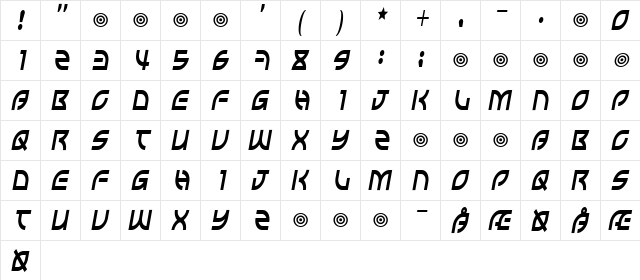
Wisecrack Regular
Design Context for Wisecrack Typeface
Wisecrack is a composed and adaptable typeface that performs quietly and consistently across a wide range of design contexts.